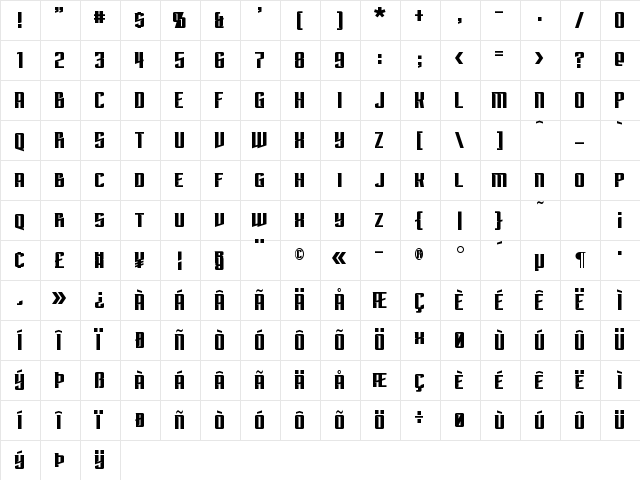
Subspace Regular Free Font
Subspace Regular
Foundry: Pixel Sagas
Designer: Neale Davidson
Year: 2016
Design Context for Subspace
Subspace is a composed and adaptable typeface that performs quietly and consistently across a wide range of design contexts.